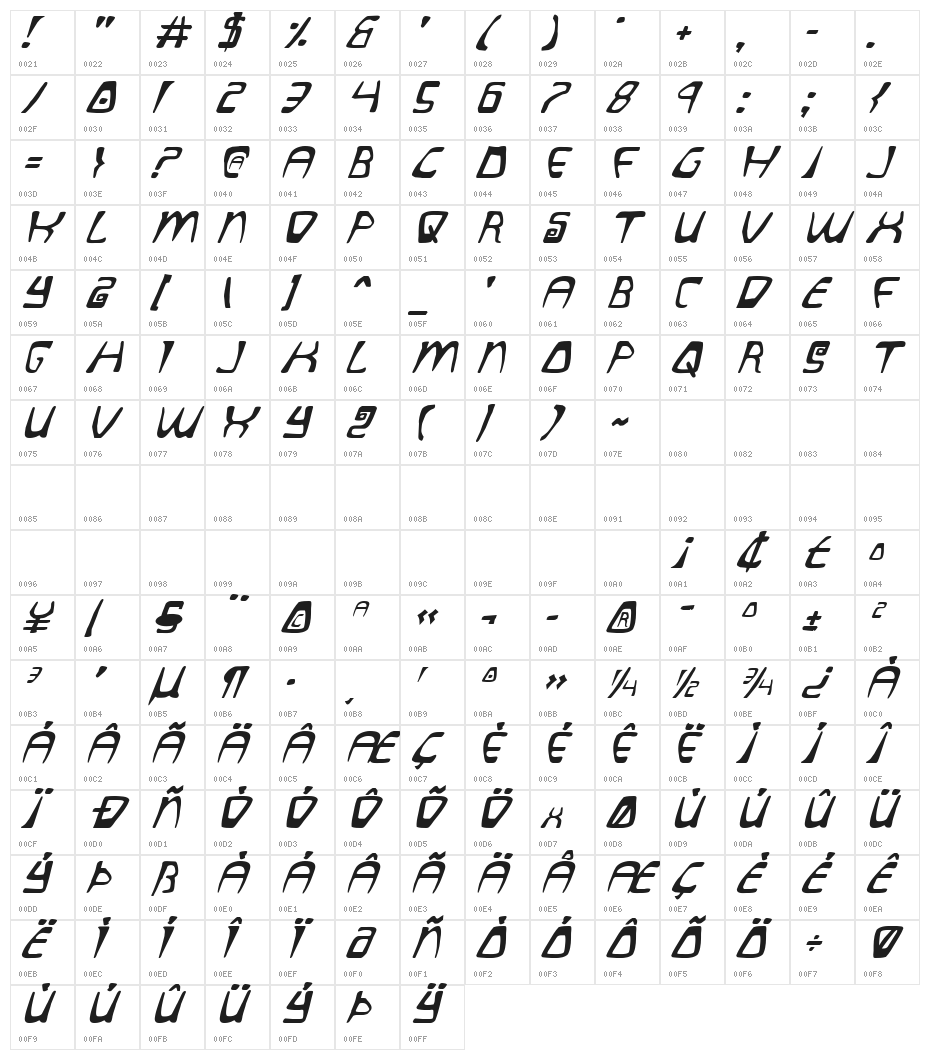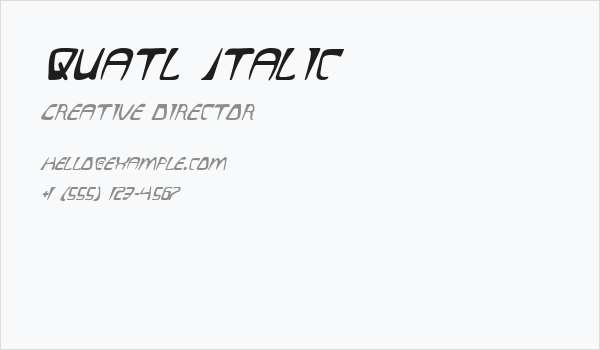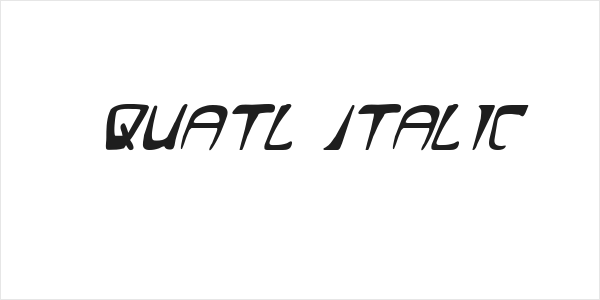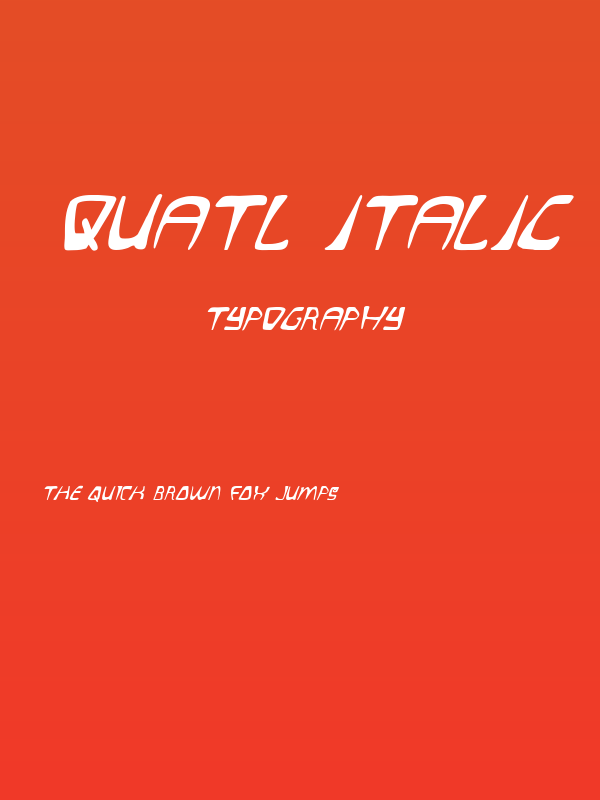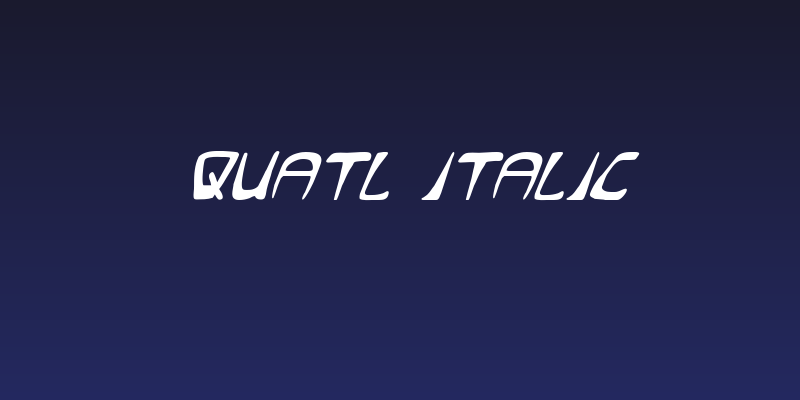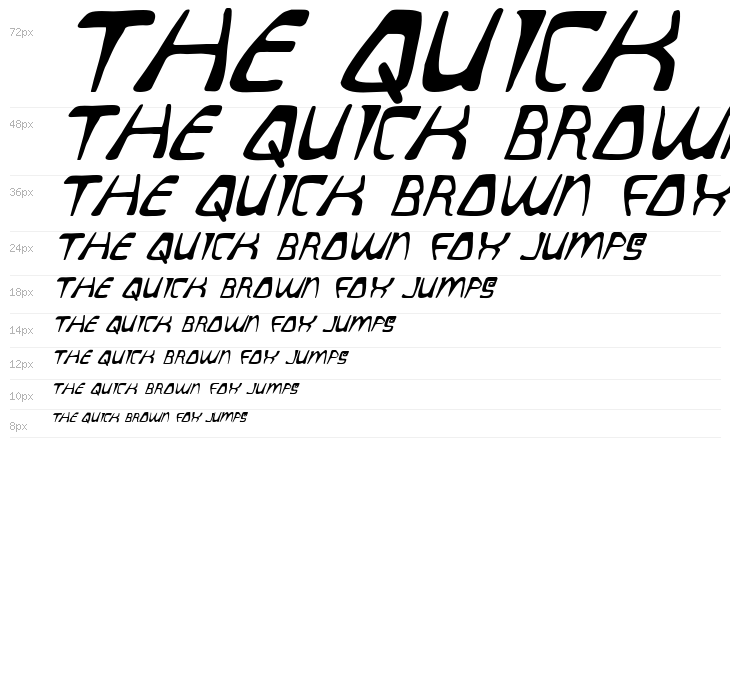
Quatl Italic Font
Quatl Italic Description
This font features a dynamic and modern italic style with a unique twist. The characters are slightly slanted, giving a sense of motion and fluidity. The uppercase letters are bold and prominent, while the lowercase letters maintain a consistent style with a slightly narrower form. The numbers are distinct and easily readable, with a bold presence that matches the uppercase letters. Special characters are creatively designed, adding a decorative flair to the overall appearance. The font's design is both artistic and functional, making it suitable for a variety of creative applications.